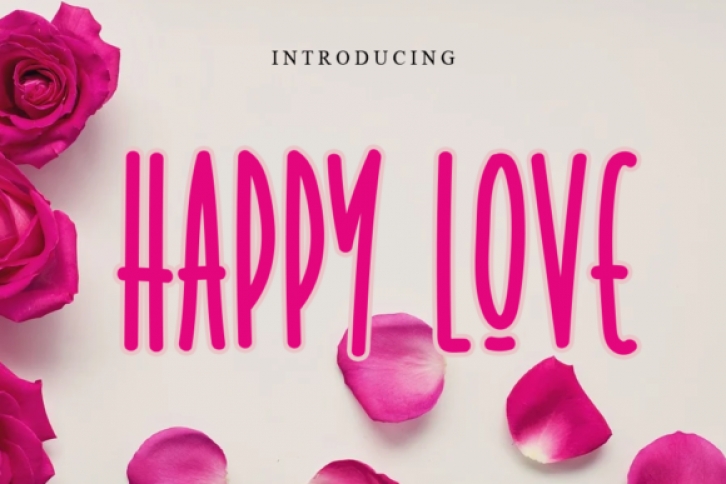
Happy Love is a simple and natural display font. This original look will appeal to a wide range of crafty ideas, from letterheads and titles, to stationery.